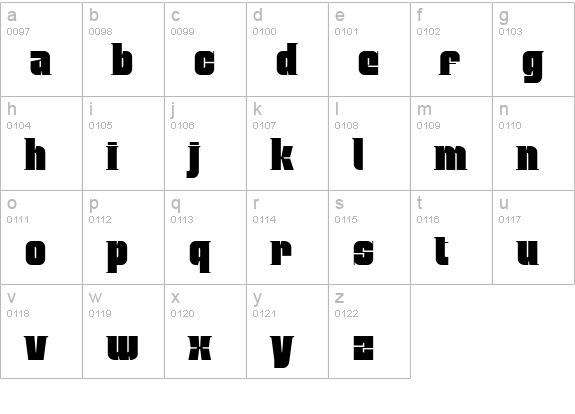
MobleySerif-Regular is the standard, neutral variant in the MobleySerif typeface family \xE2\x80\x94 well suited to general body text, paragraphs, and standard typographic work.
MobleySerif-Regular is a versatile and elegant serif font that exudes sophistication and modernity. With its clean lines and classic design, this typeface is perfect for a wide range of design projects, from branding and logos to editorial layouts and web design. Featuring a timeless and stylish look, MobleySerif-Regular effortlessly combines tradition with a contemporary twist, making it a go-to choice for designers looking to make a lasting impression. Its balanced proportions and legible letterforms ensure readability across various mediums, making it a reliable choice for both print and digital applications. The best part? MobleySerif-Regular is available for free download at FontsMarket.com, allowing designers to access this high-quality font without breaking the bank. Whether you're working on a personal project or a client's design, MobleySerif-Regular is a versatile and dependable font that will elevate your work to new heights.